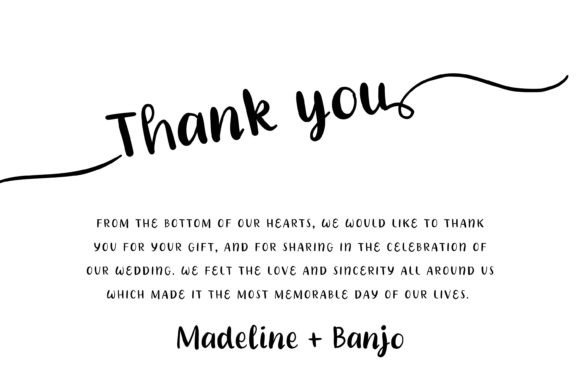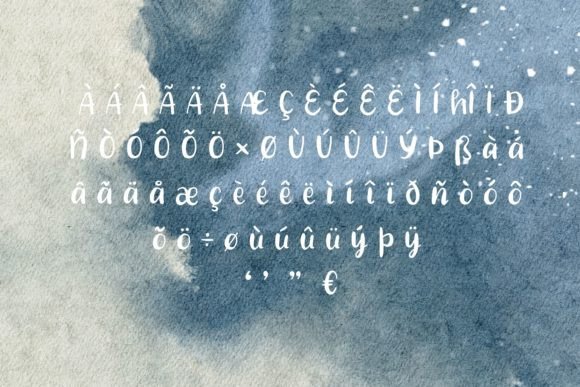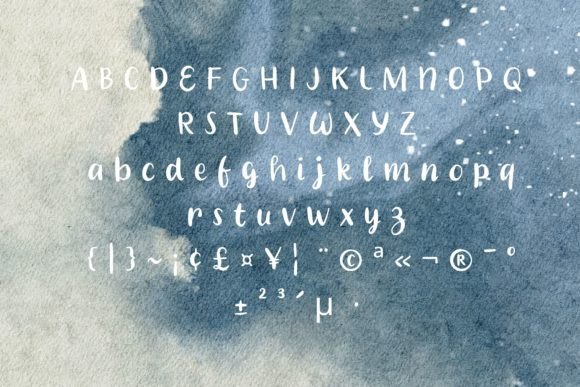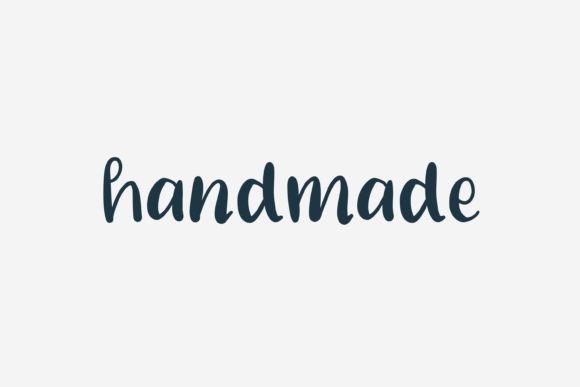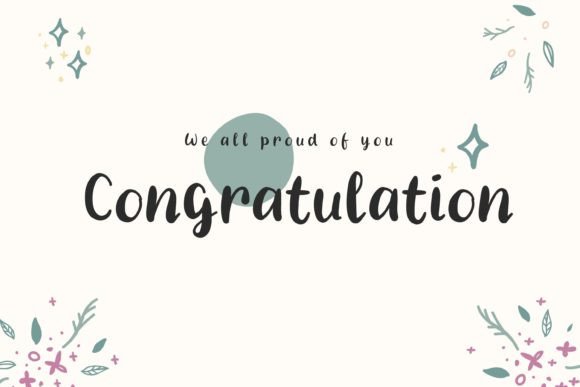
Introduction to Setyaki Font
Setyaki is a Script handwritten font, carefully handcrafted to become a true favorite.
Its casual charm makes it appear wonderfully down-to-earth, readable and, ultimately, incredibly versatile Setyaki will look outstanding in any context, whether itโs being used on busy backgrounds or as a standalone headline.
Key Features of Setyaki Font
Why Choose Setyaki Font?